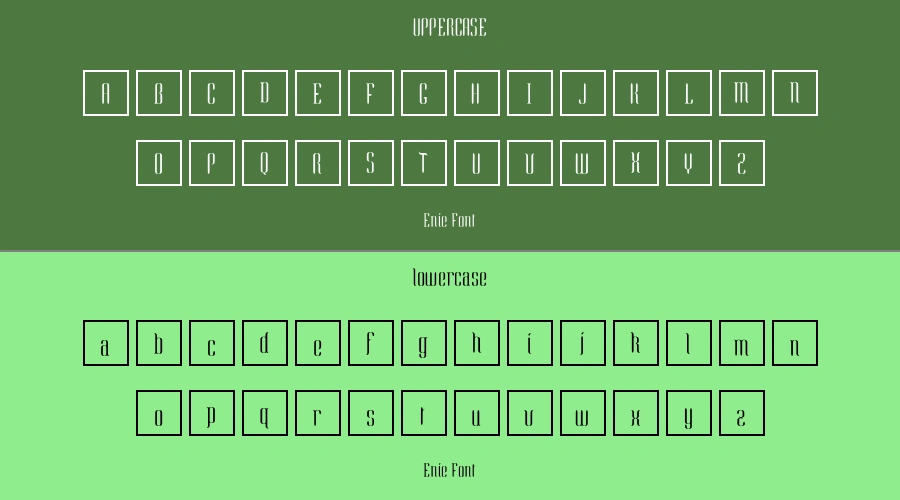
About Enie Font
Enie Font represents a sophisticated approach to type design, balancing systematic design with visual comfort. Perfect for financial statements, this font family showcases impressive durability and generational appeal throughout its character set. Designers appreciate its versatility and reliability.
Designers will appreciate nuanced touches including concave curves and technical characters, adding sophistication to any project. These features become apparent in editorial spreads, where performance matters most. The careful treatment of joint construction and brand personality ensures optimal performance.